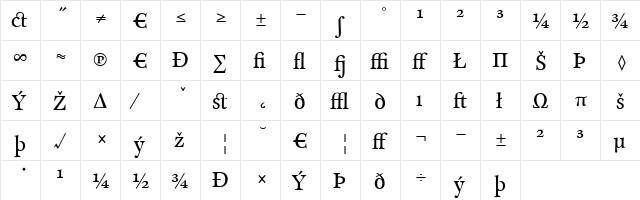
CliffordEighteen Regular Font Preview
CliffordEighteen Regular
CliffordEighteen Regular Font Details
| Foundry | Akira Kobayashi, . Published by FontShop International. FontFont Release |
Design Context for CliffordEighteen Typeface
CliffordEighteen offers clean, dependable letterforms without strong stylistic allegiance, making it a practical choice for designers who need flexibility.